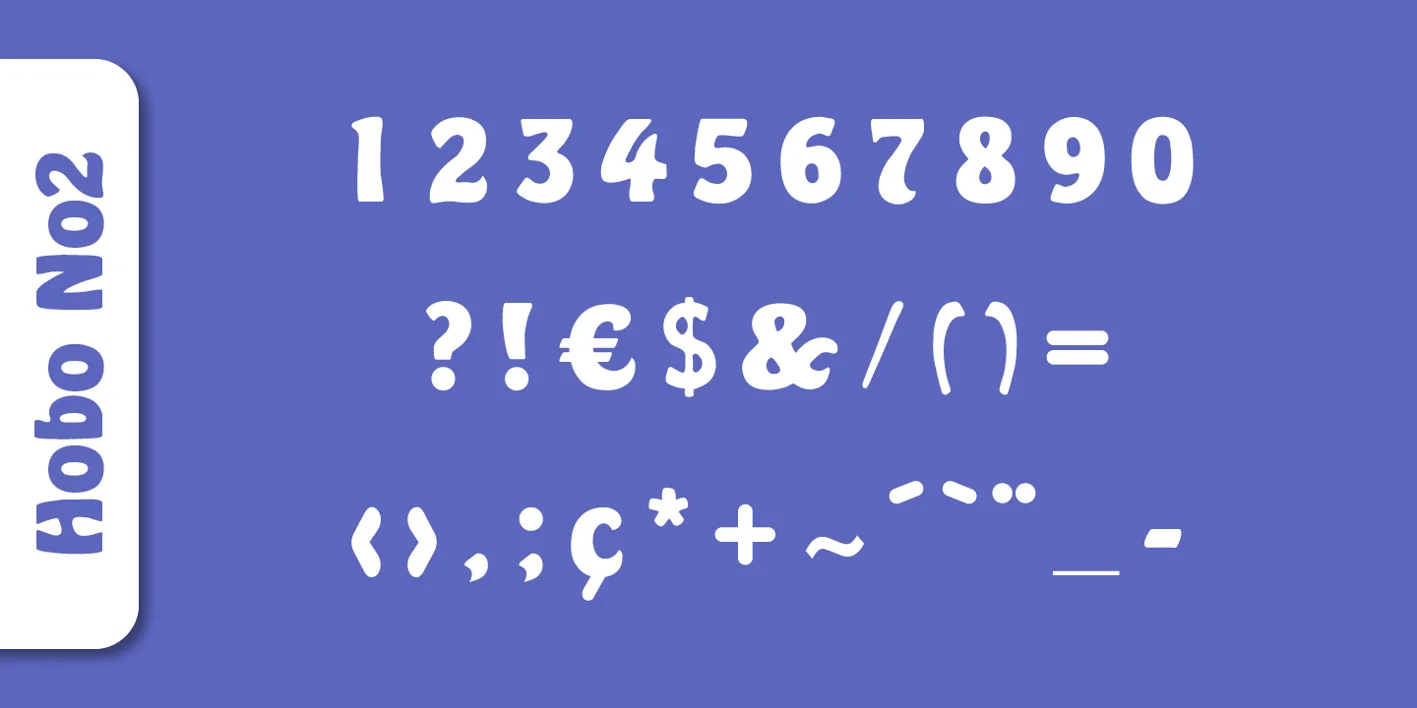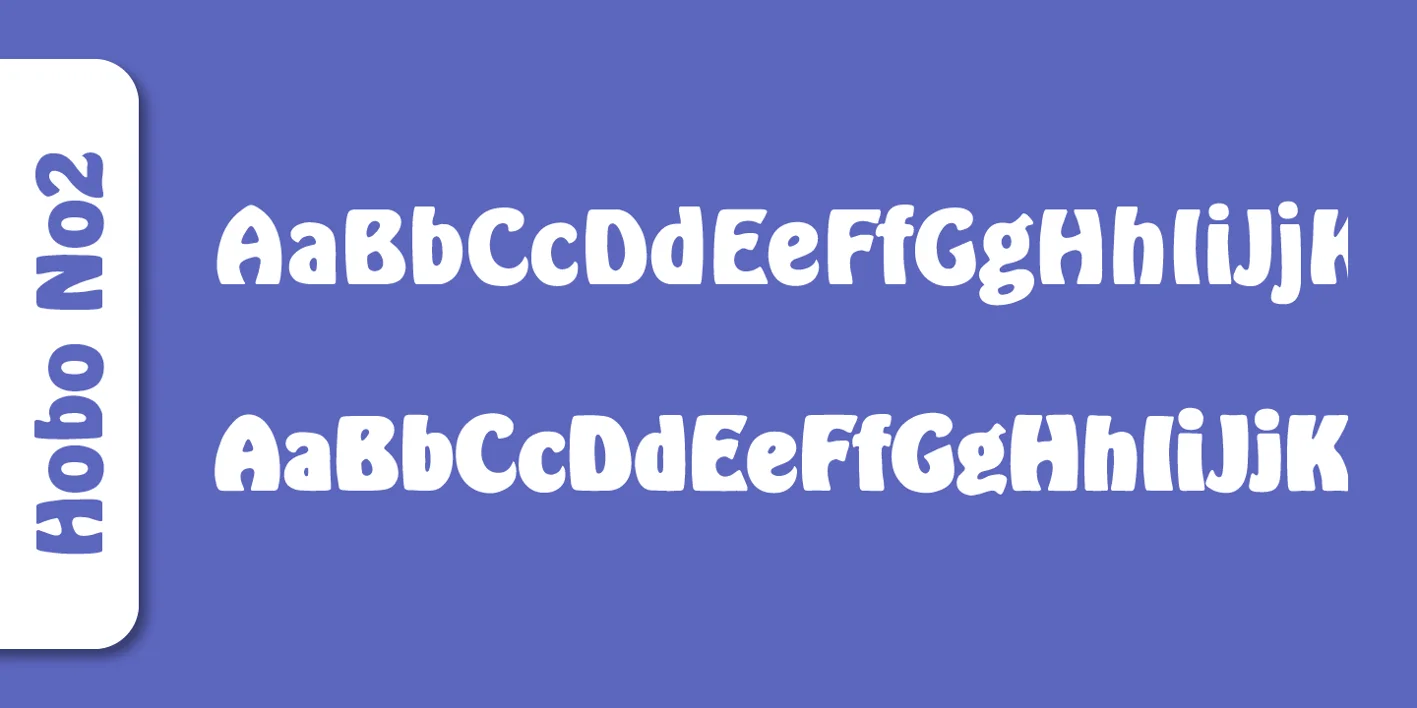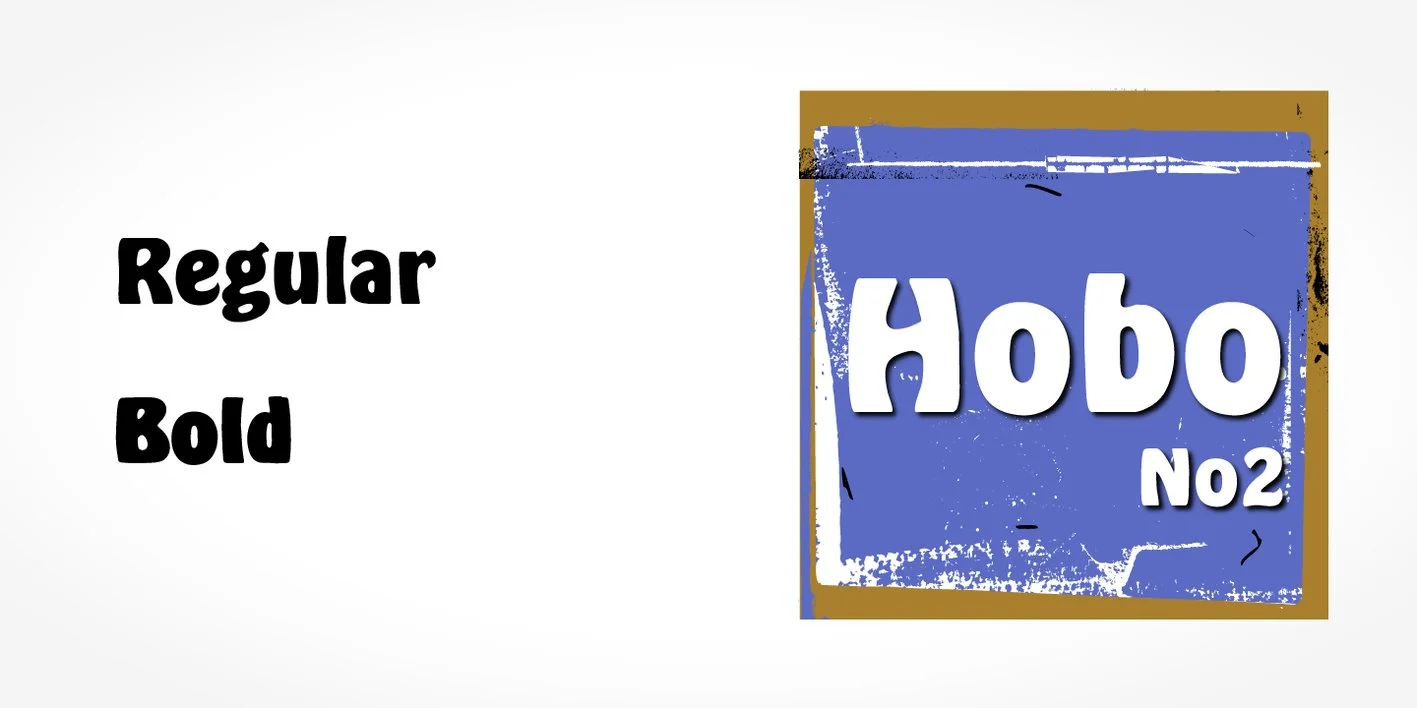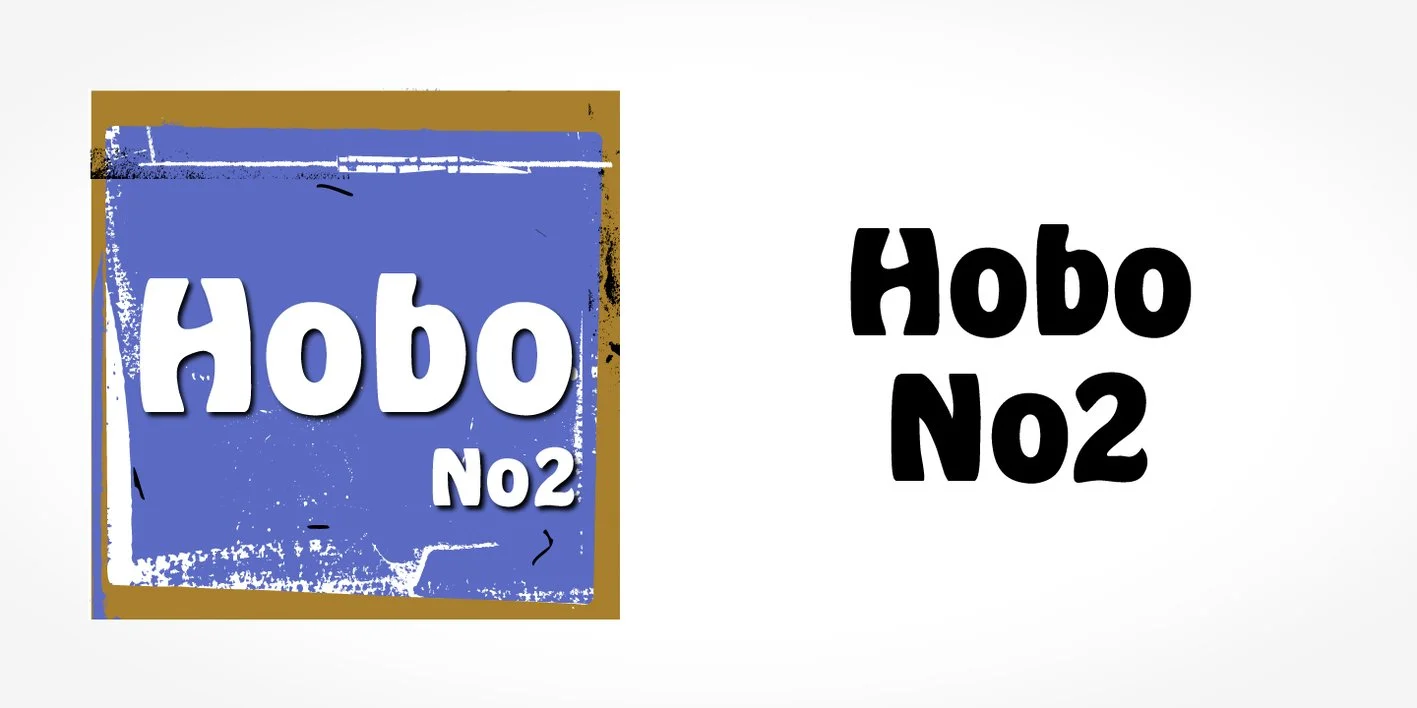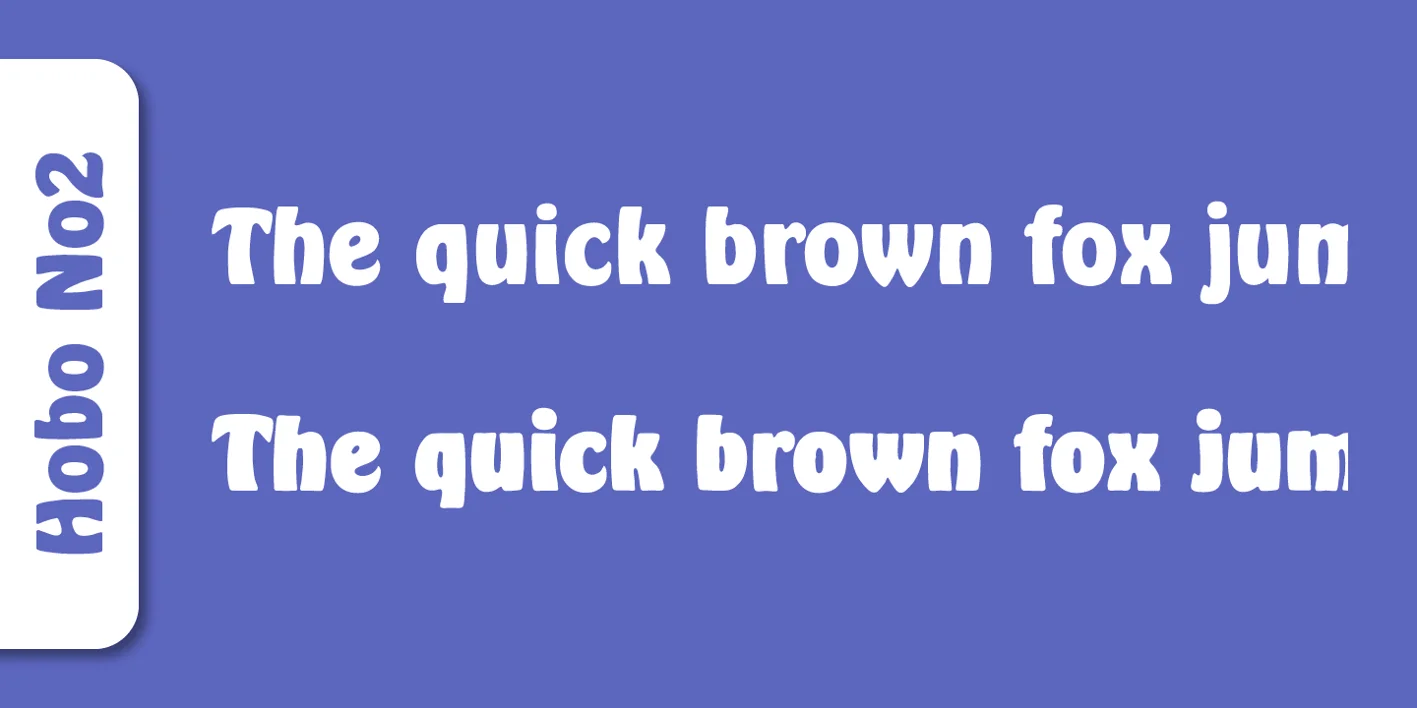
Hobo No2 Font
A good typeface communicates tone before a single word is read. Hobo No2 achieves this through consistent type colour across continuous text. The typeface brings a versatile sensibility to a broad range of creative disciplines, with controlled contrast that rewards close inspection that holds up whether the work is print-first or screen-first.
In practice, Hobo No2 proves particularly effective for product labels, social media graphics, poster creation, environmental graphics, logo design. Designers reaching for it find that the type decisions feel resolved rather than laboured — a useful quality when client timelines are tight.
The range of applications extends to advertising campaigns, packaging design, editorial layouts, brand identity systems. That breadth is deliberate: the proportions and spacing were stress-tested across a wide range of mock briefs before the typeface was finalised.
Spacing and kerning pairs have been individually reviewed for the most common letter combinations in English and major European languages. The result is even type colour across continuous text, with no awkward gaps or collisions between adjacent characters.
Hobo No2 sits comfortably alongside both classic and contemporary typefaces in multi-font hierarchies. It takes direction rather than competing for attention — a quality that experienced designers know is harder to find than it appears.
Art directors commissioning type-led campaigns find Hobo No2 a reliable choice for projects that demand both personality and restraint. The design avoids the self-conscious quirkiness that dates quickly, settling instead for considered distinctiveness that holds up over time.